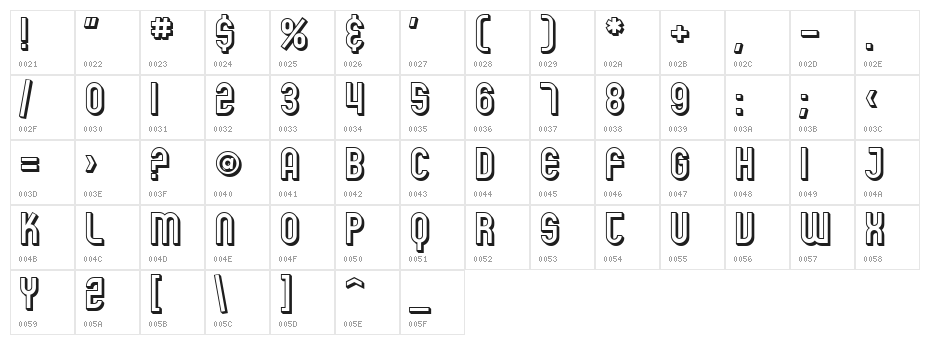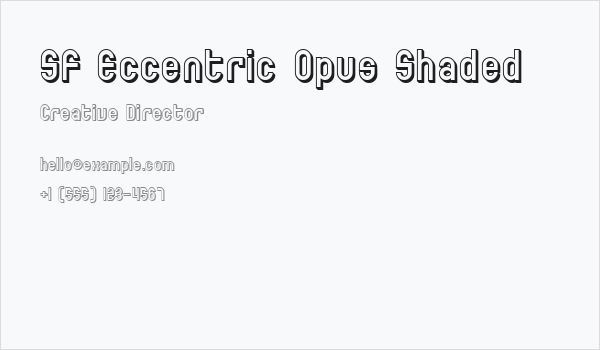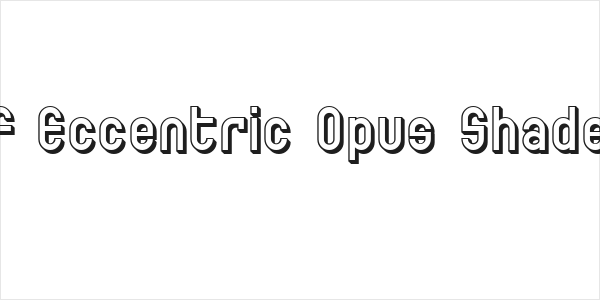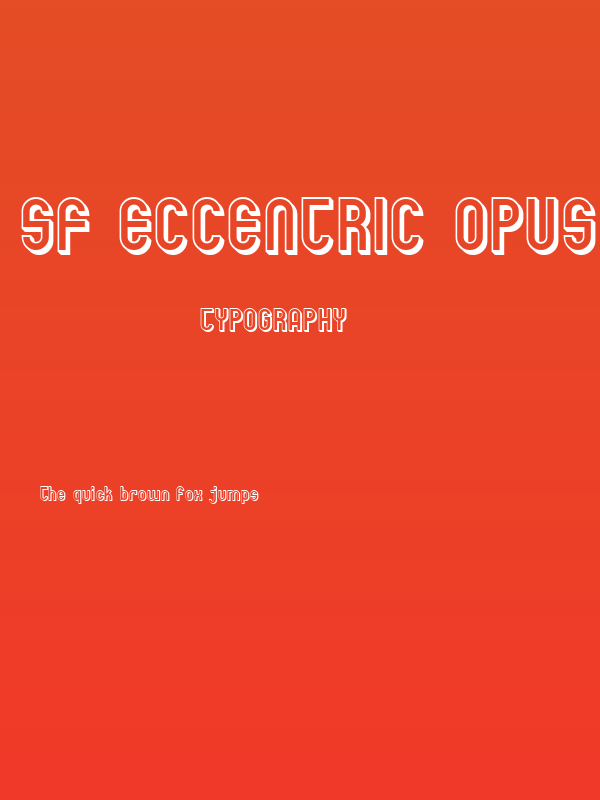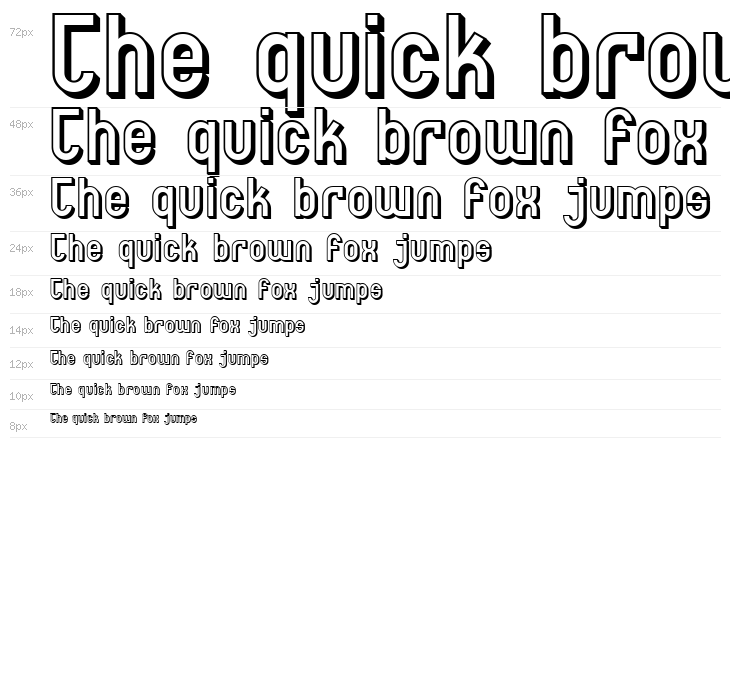
SF Eccentric Opus Shaded Font
SF Eccentric Opus Shaded Description
This font features a bold, decorative style with a unique shaded outline that gives it a three-dimensional appearance. The uppercase and lowercase letters are consistent in their geometric design, with rounded edges and a playful, modern aesthetic. The numerals and special characters maintain this cohesive look, making the font suitable for eye-catching designs. The shading effect adds depth, making it ideal for projects that require a standout, artistic touch. Its distinct style is both contemporary and versatile, perfect for creative applications.
| Proposed Projects | Ideal for posters, logos, headlines, and any design needing a bold, artistic flair. |